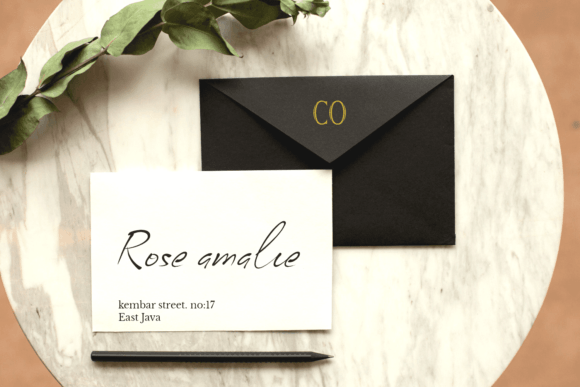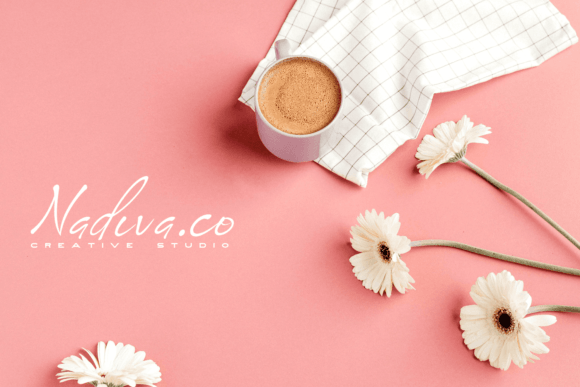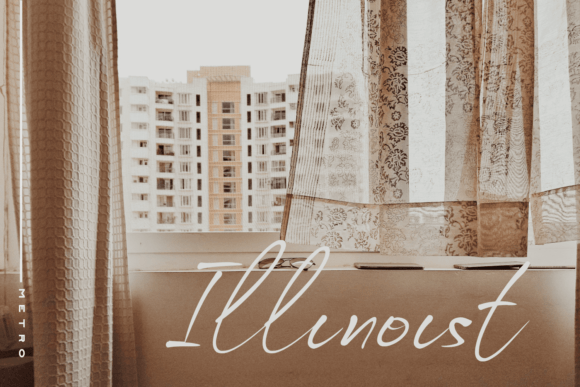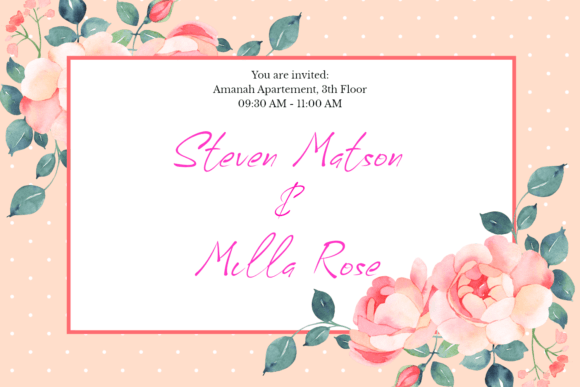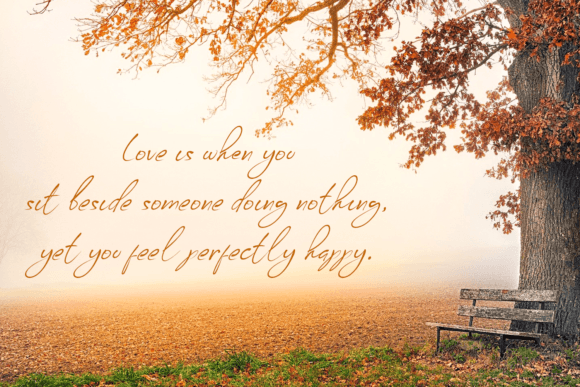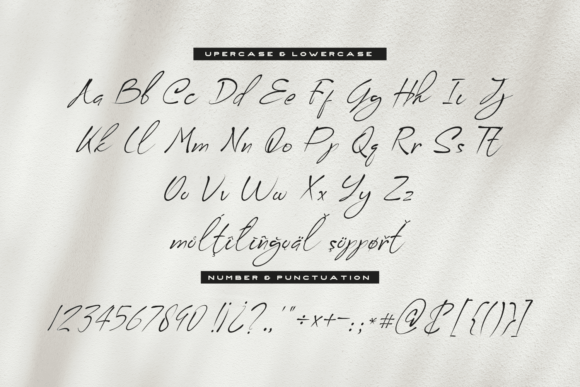
The Daily Routine Font: A Designer’s New Best Friend
I’ll never forget the design project that led me to discover the Daily Routine font. I was working on a branding project for a local coffee shop, and I was struggling to find the perfect font that conveyed a sense of warmth and friendliness. The client wanted something that would appeal to a wide range of customers, from busy professionals to families with kids. After hours of searching through font libraries and trying out different combinations, I stumbled upon Daily Routine. And let me tell you, it was love at first sight! 💕
So, what makes Daily Routine so special? Here are a few things I love about this font:
- ✨ Clean and simple design that’s easy on the eyes
- 💬 Friendly and approachable feel that’s perfect for a wide range of designs
- 🎨 Versatile and adaptable to different styles and themes
Of course, no font is perfect, and Daily Routine has a few small quirks:
- 🤔 Limited character set compared to some other fonts
- ⚠️ Not ideal for body text or long-form content
The Story Behind Daily Routine
Daily Routine was designed by a talented type designer who wanted to create a font that was both clean and friendly. The goal was to create a font that would be suitable for a wide range of designs, from branding and advertising to packaging and digital media. The result is a font that’s both versatile and approachable.
| Font Name | Daily Routine Font |
| Author | Type Graphy |
| What is Daily Routine? | Daily Routine is a clean, relaxed, and friendly handwritten font. |
| What can I use Daily Routine for? | Daily Routine is suitable for a wide range of designs, including branding, advertising, packaging, and digital media. |